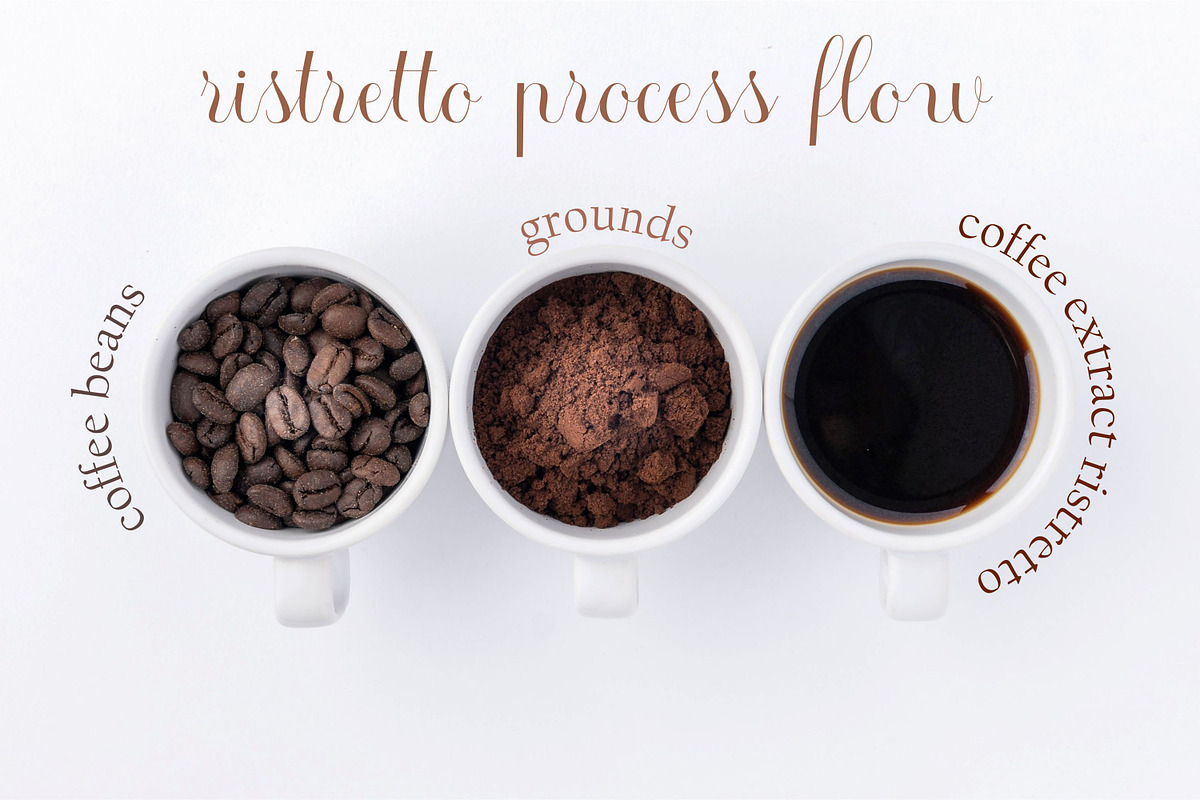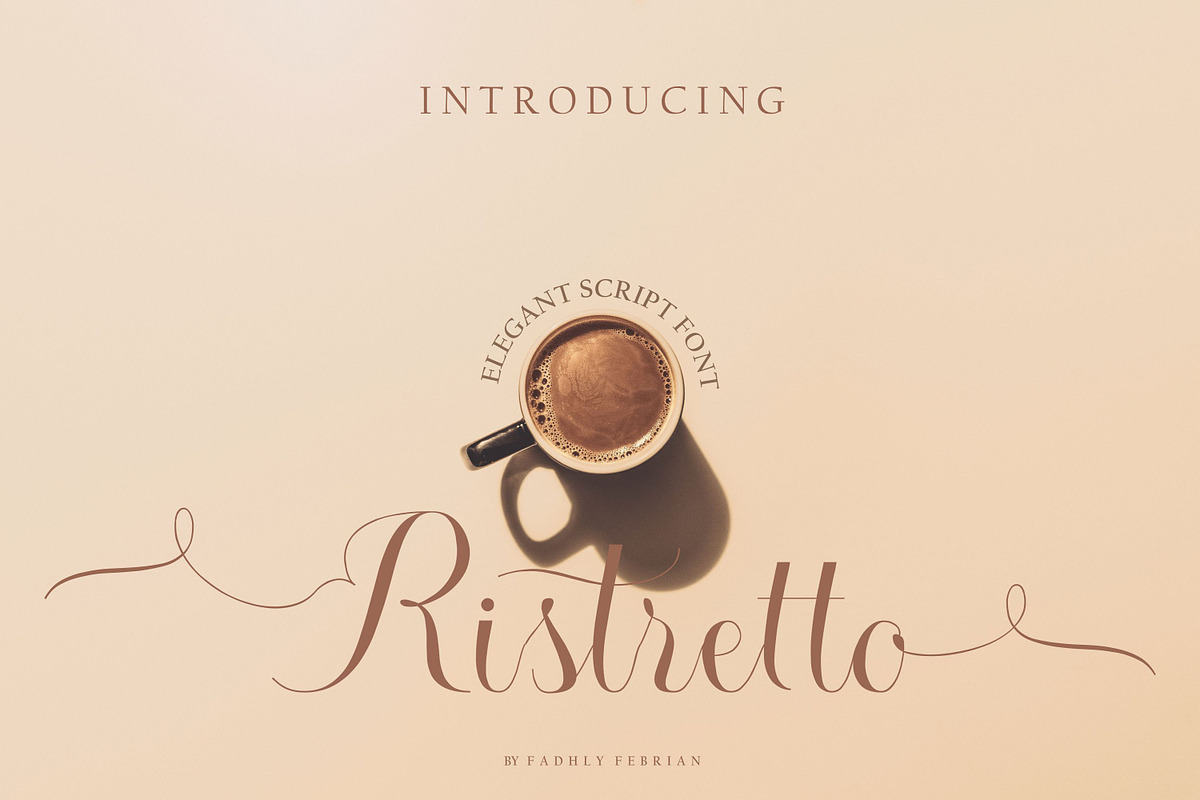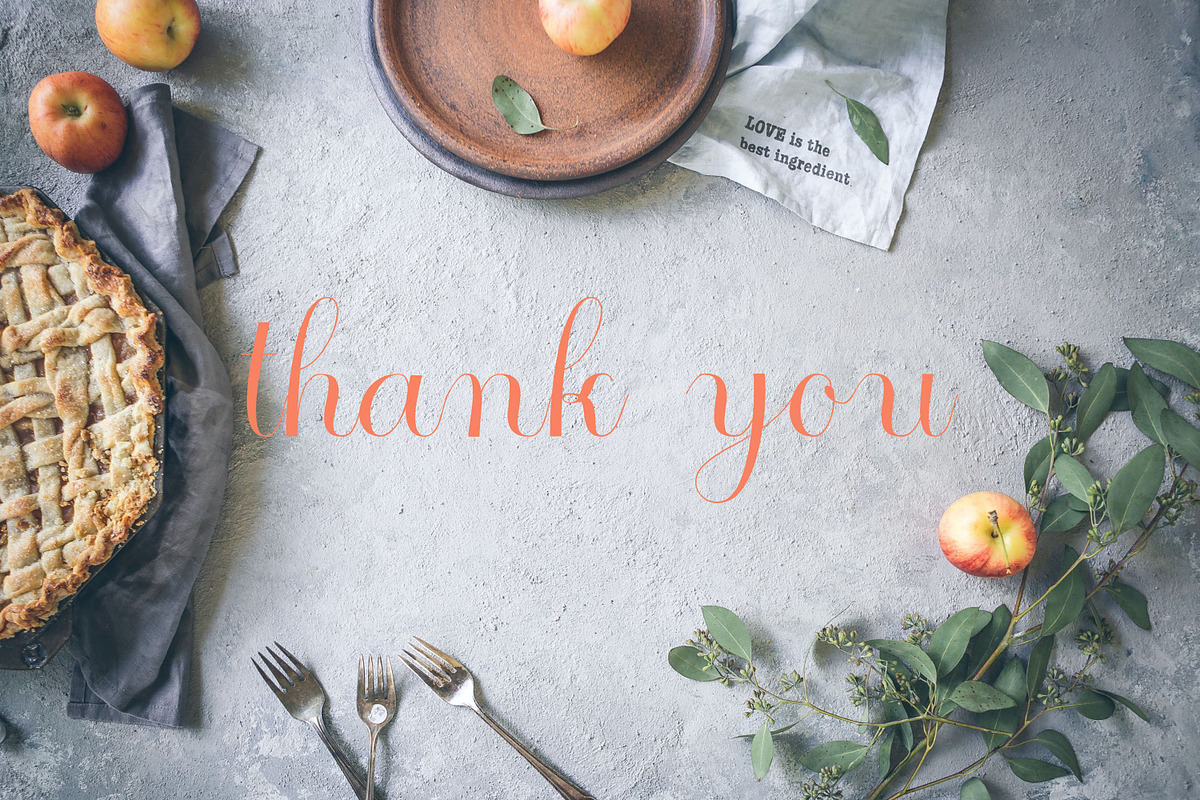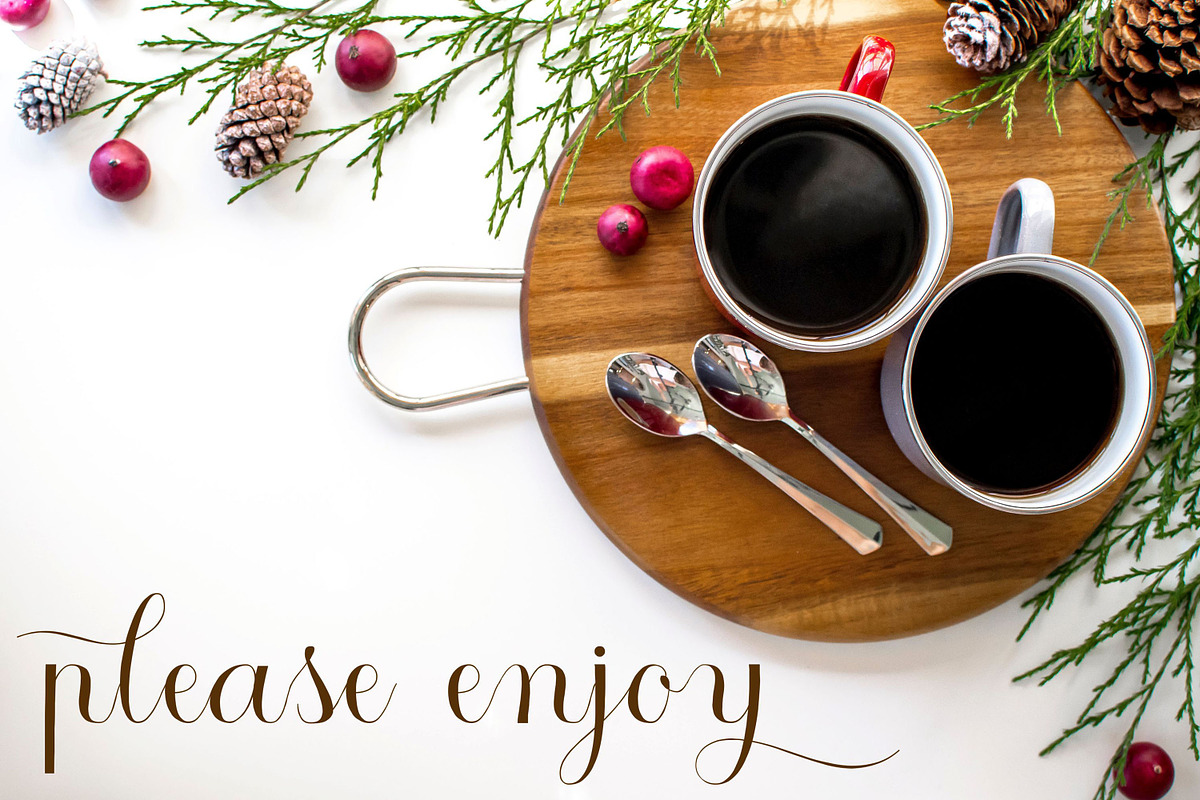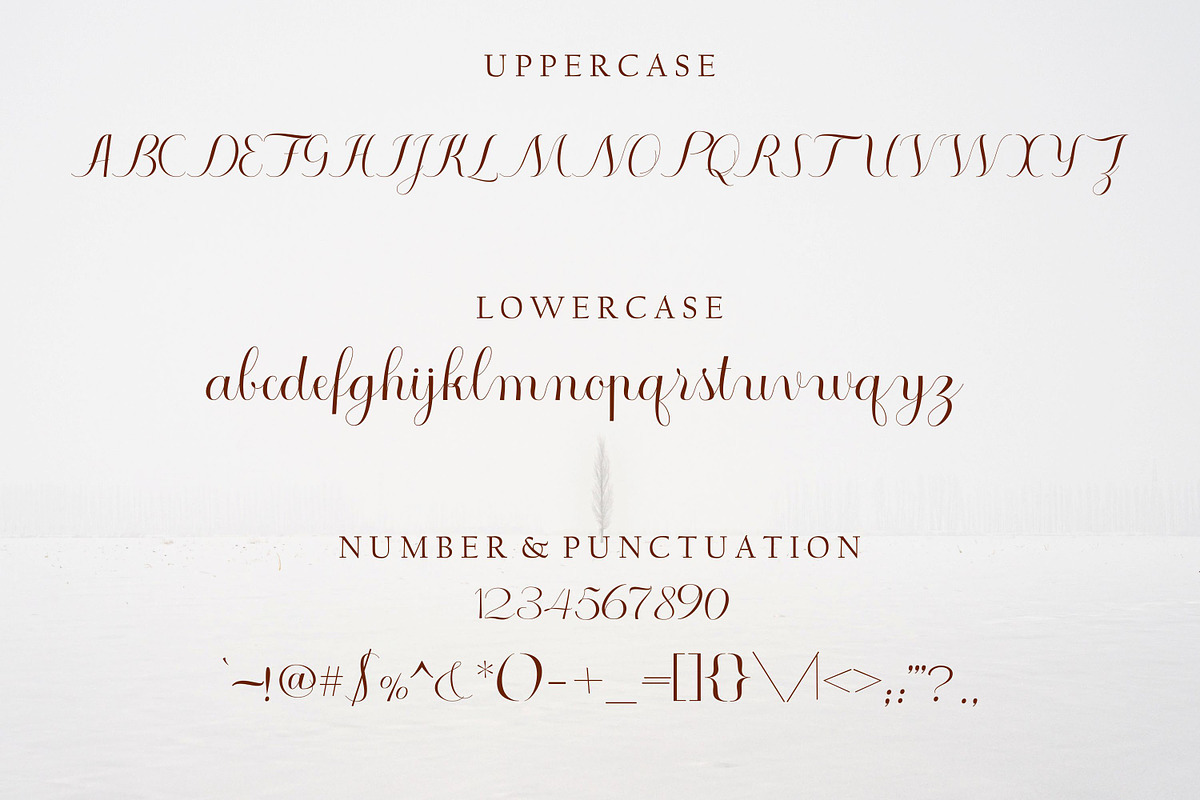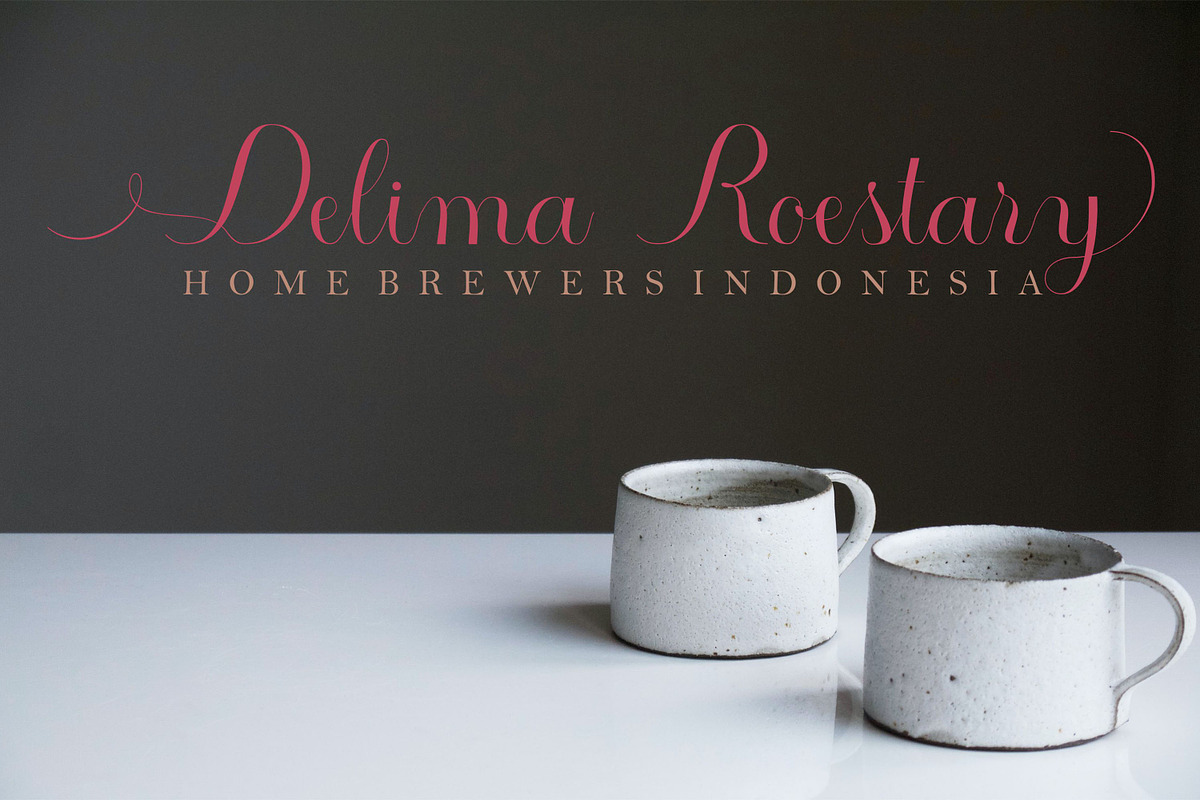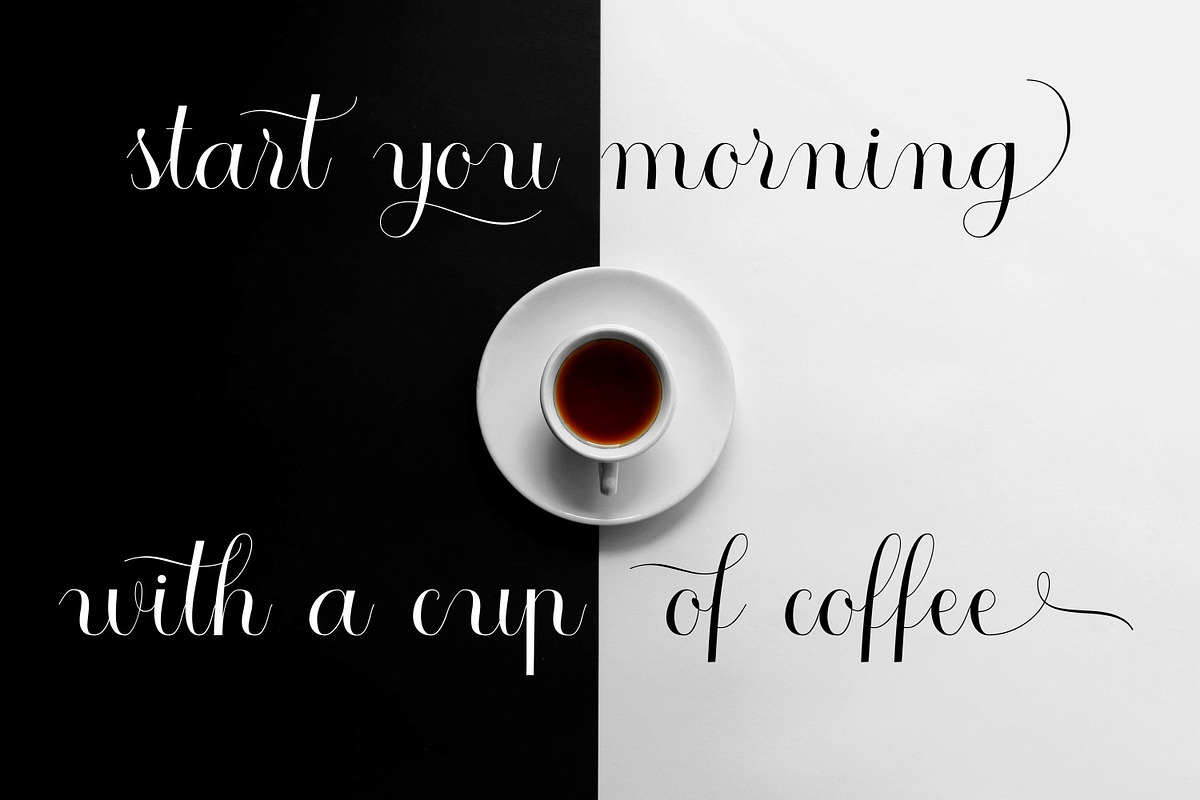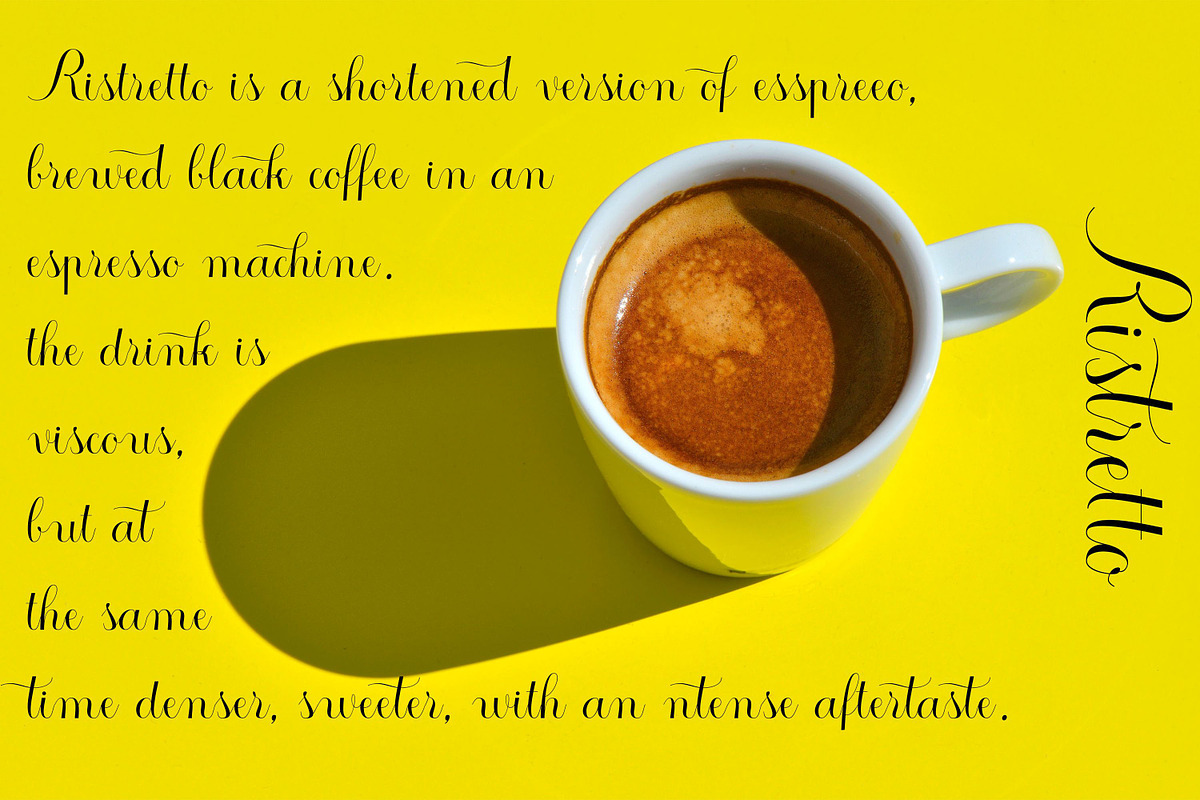
Ristretto
Ristretto is a modern script font that has been meticulously crafted to look beautiful. This font can be applied to many of your projects such as: wedding invitations, birthday invitations, logo designs, T-shirts, postcards, advertisements, magazine titles, apparel branding etc. And also with OpenType features for alternative font choices.
Font features :
- Uppercase beginning swash
- Lowercase ending swash